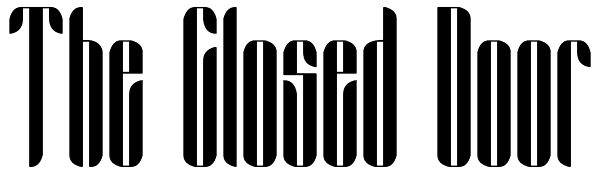
The Closed Door
The Closed Door is a high-contrast and condensed font which can be used for letterings, posters, logotypes. Font supports cyrillic characters.
The Closed Door Font